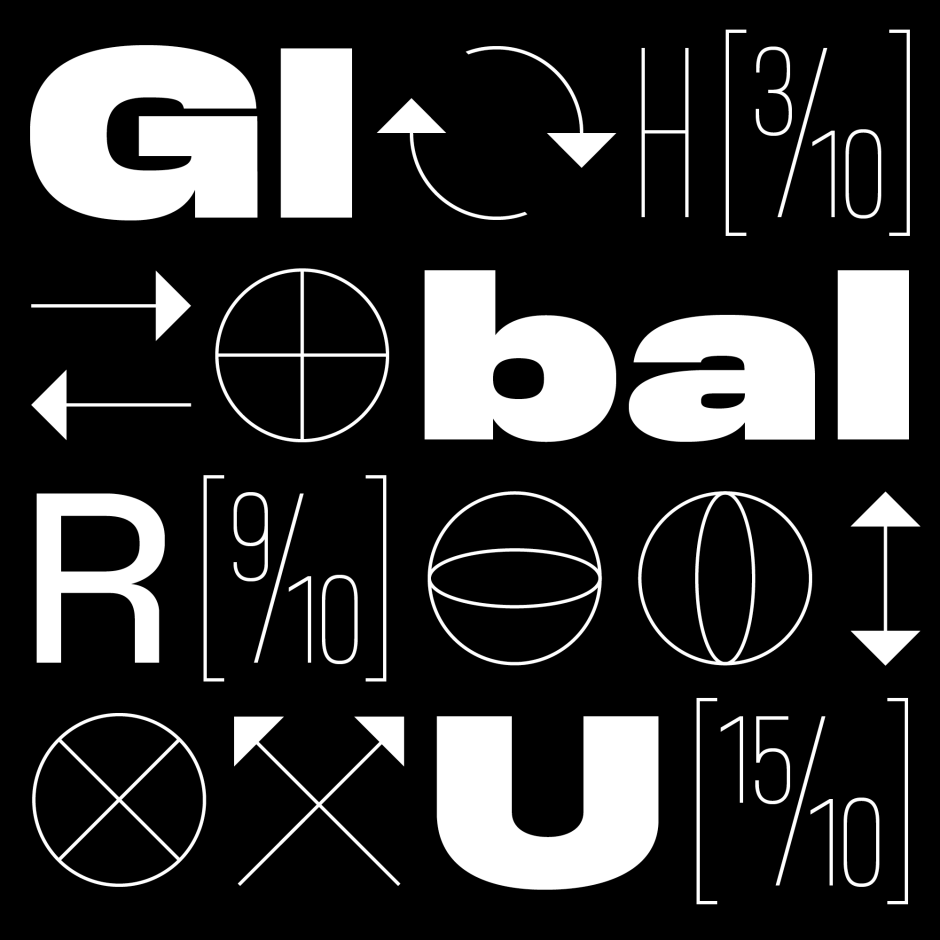
BB Global™ (Pro) – Typeface
BB Global™ (Pro) is inspired by the globe’s coordinate system (Lat-Lon). The lines of latitude run parallel to the equator, while the meridians cross at the North and South Poles, creating different dimensions depending on the viewing angle.
● 11 Stylistic Sets
● 13 Styles/Weights/widths
● 29 Opentype-Features/Style
● 87 Languages Support
● 8450 Glyphs (650/Weight)